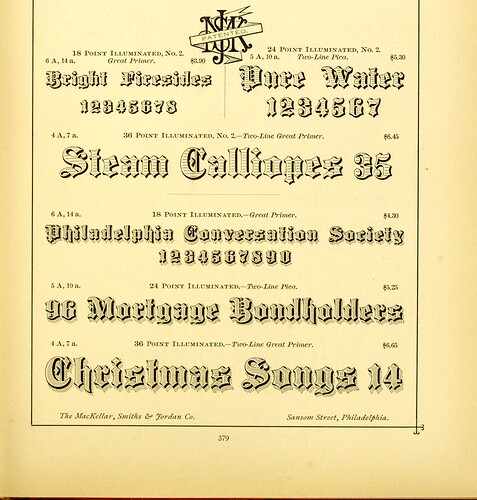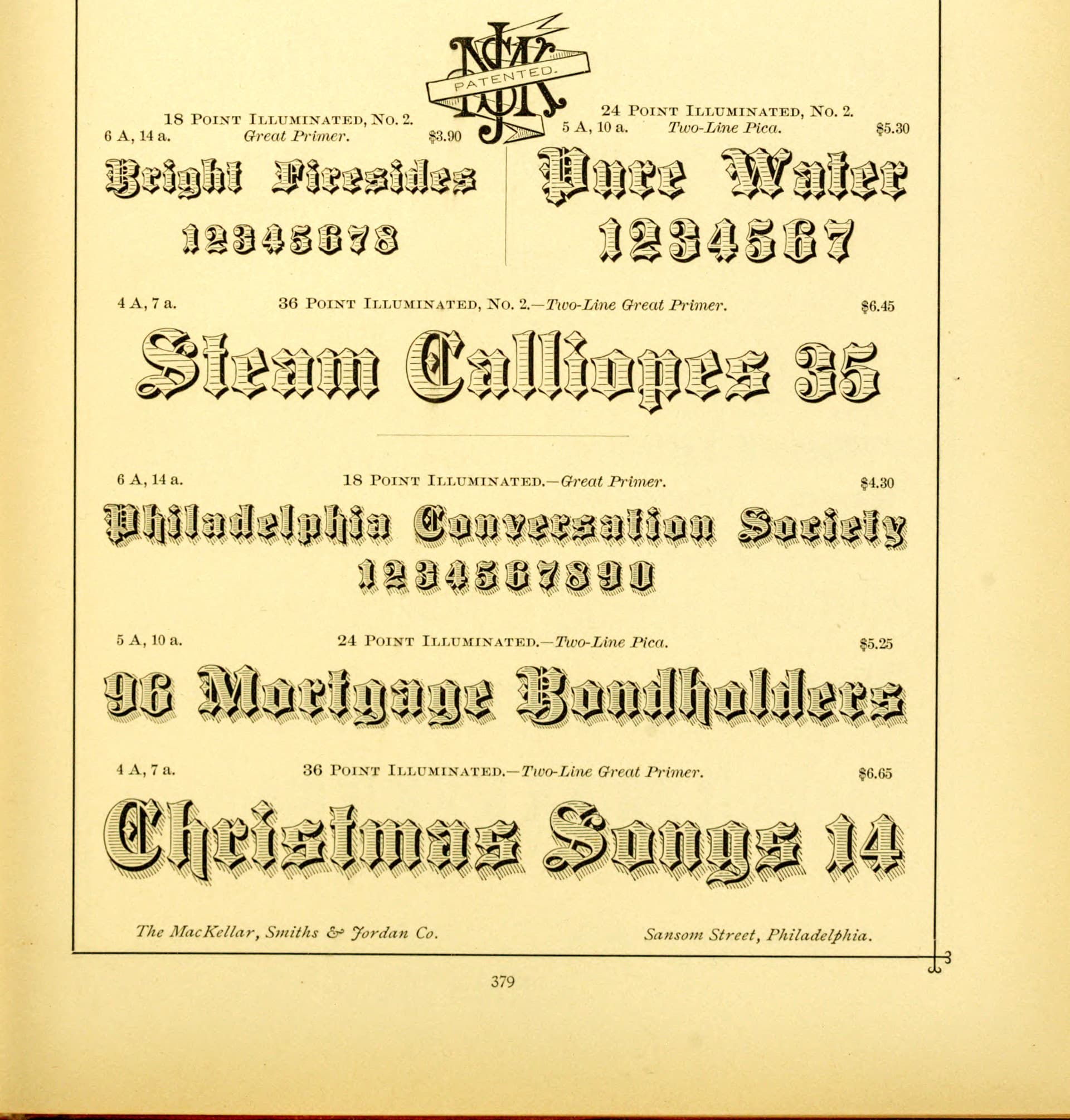
They are all the same typeface, but they are shaded differently.
It’s hard to find a match for the face itself, but MyFonts identified four fronts from the Archive foundry that resemble this sheet. Luc Devroye lists many of the Archive faces on this page (but it seems that the designer has shut his website):